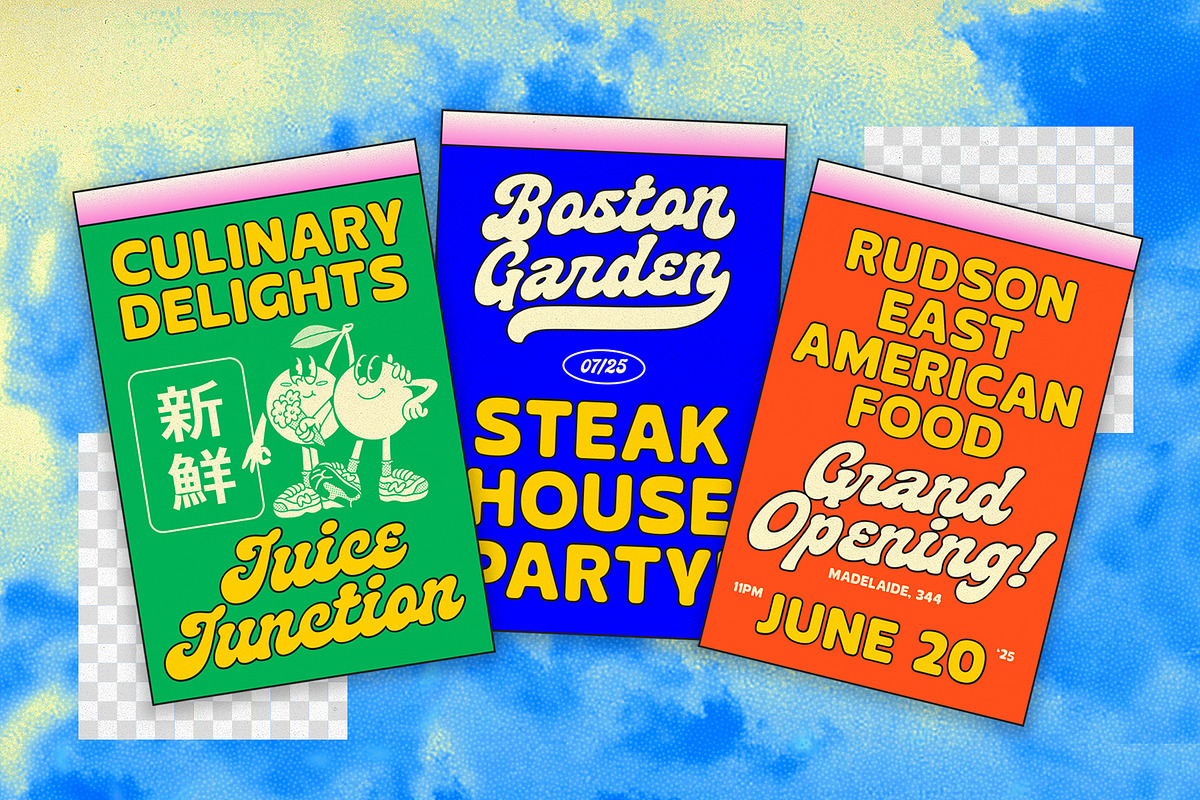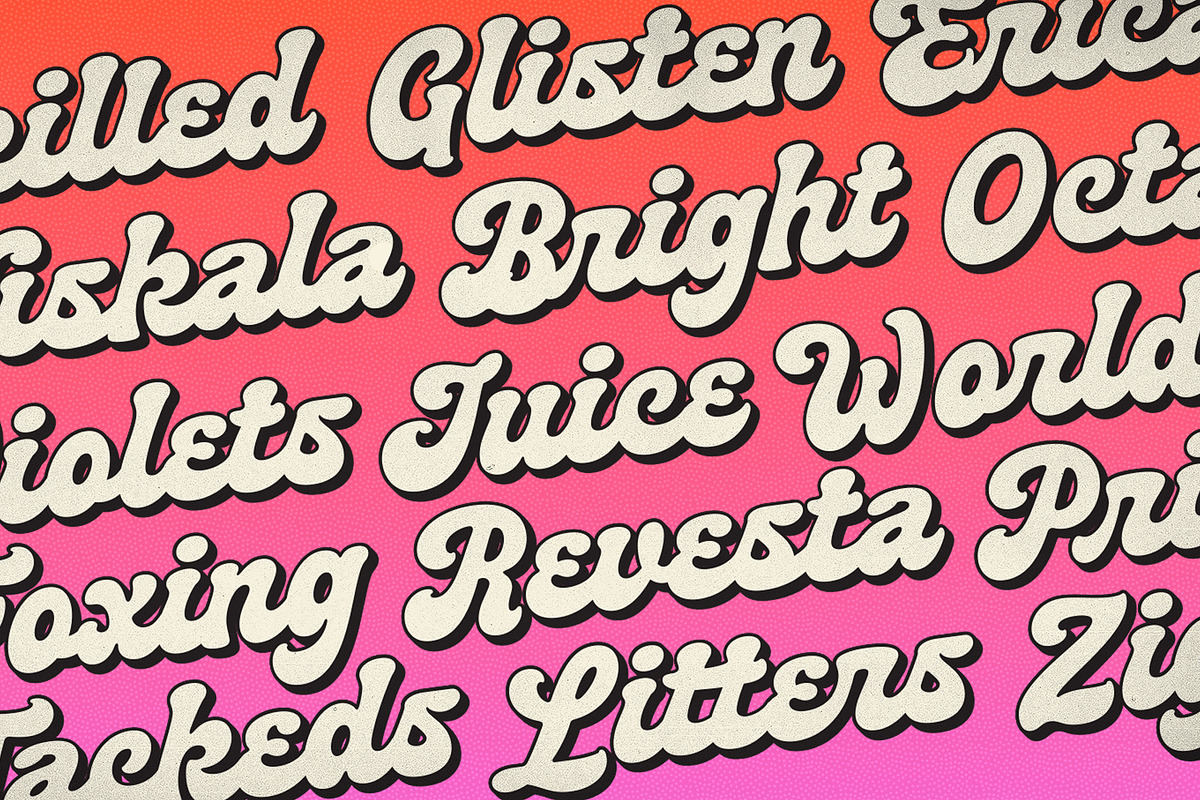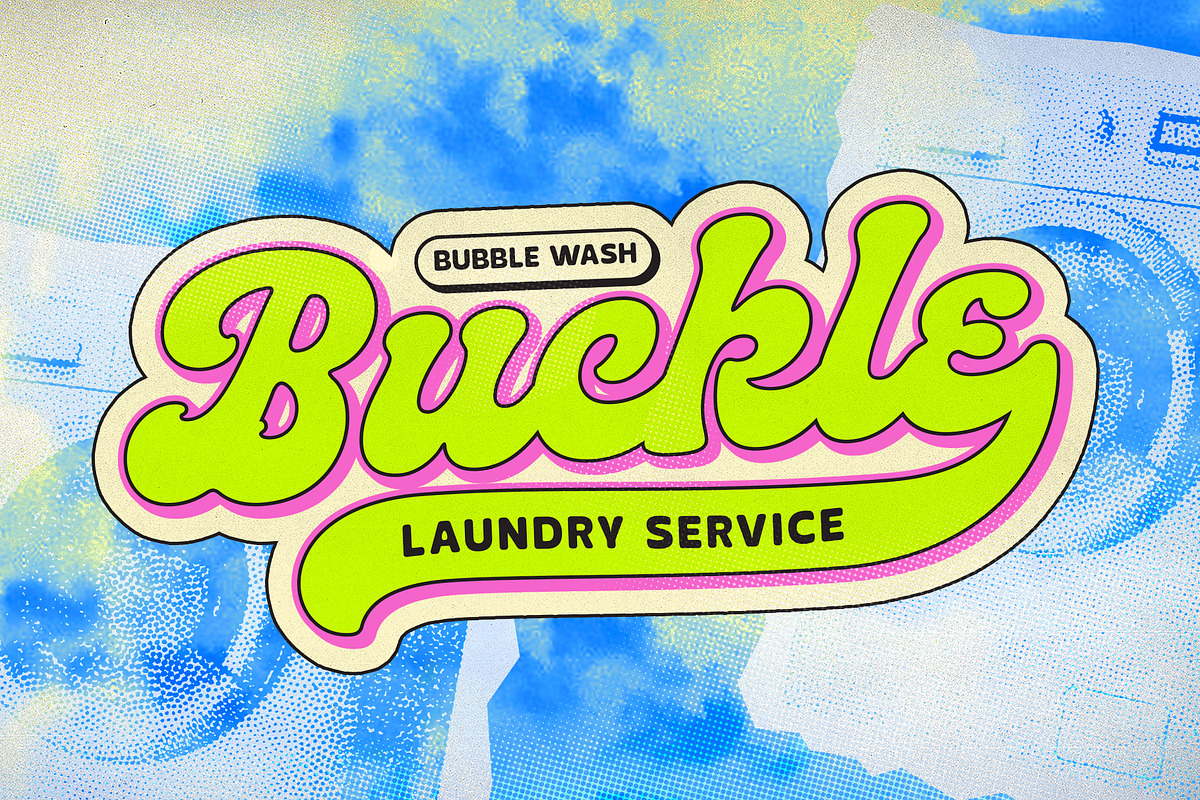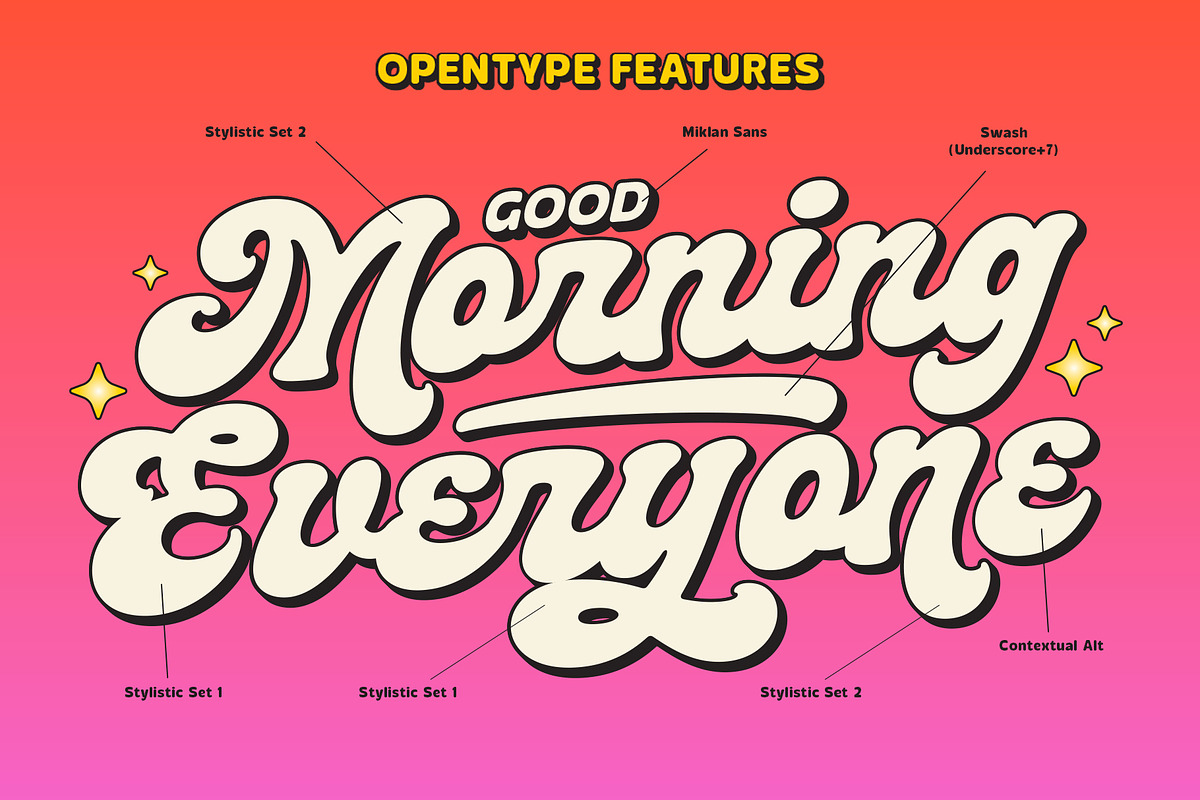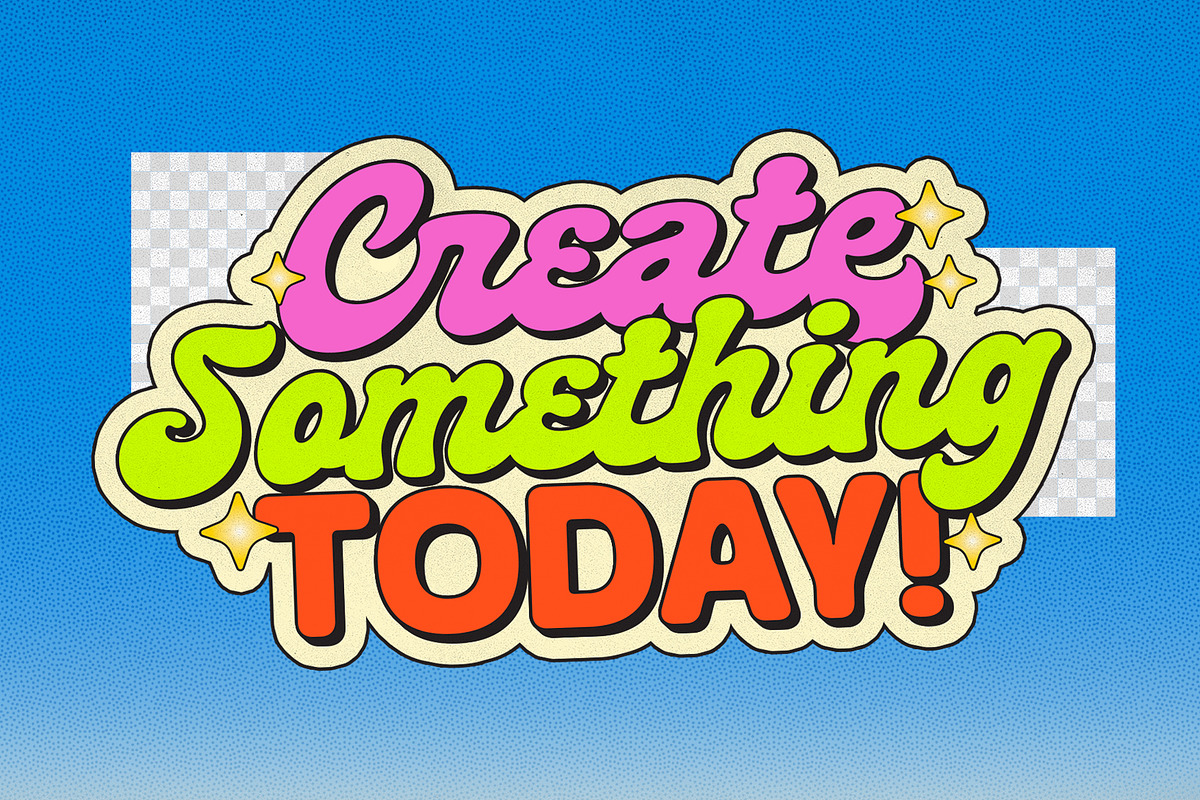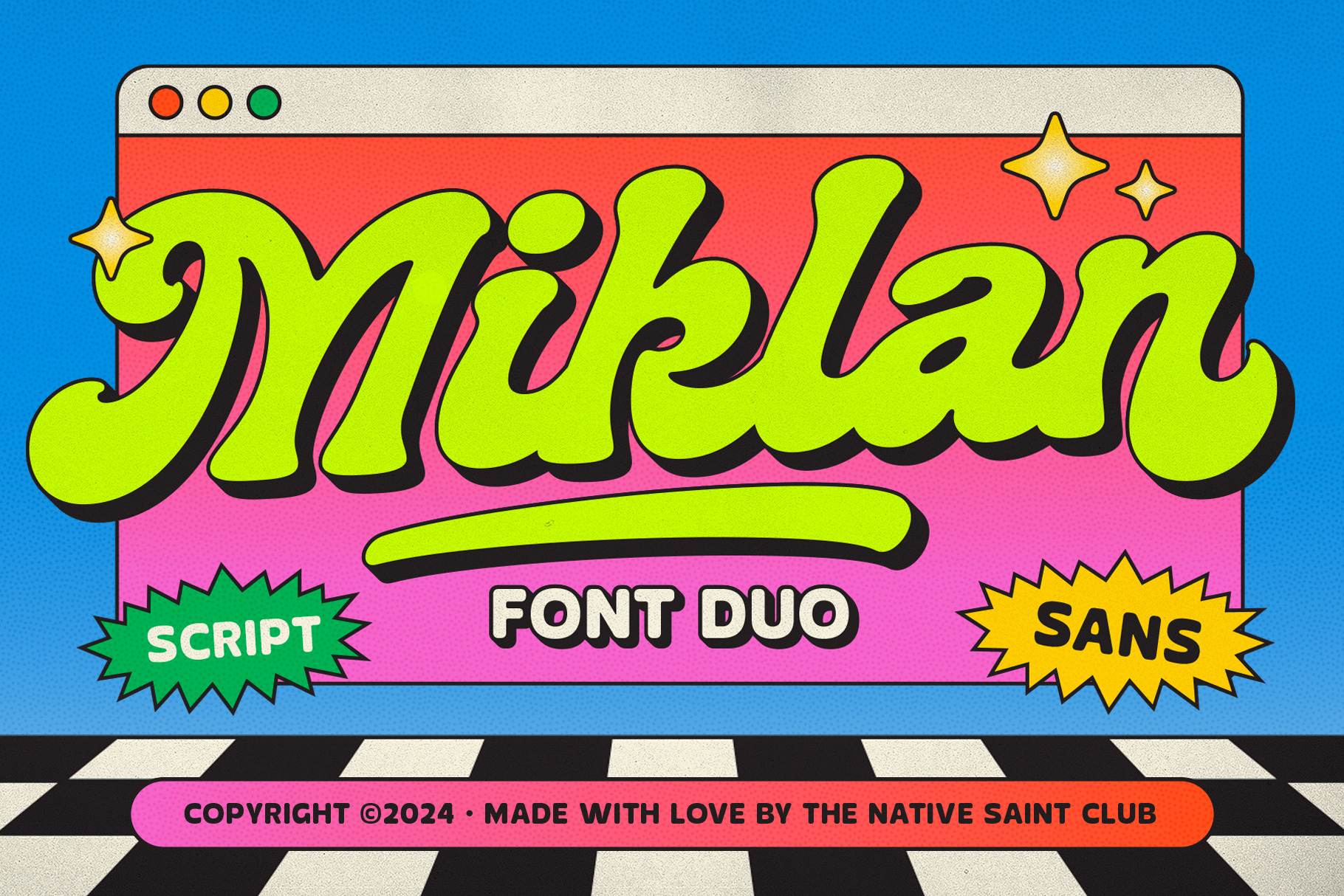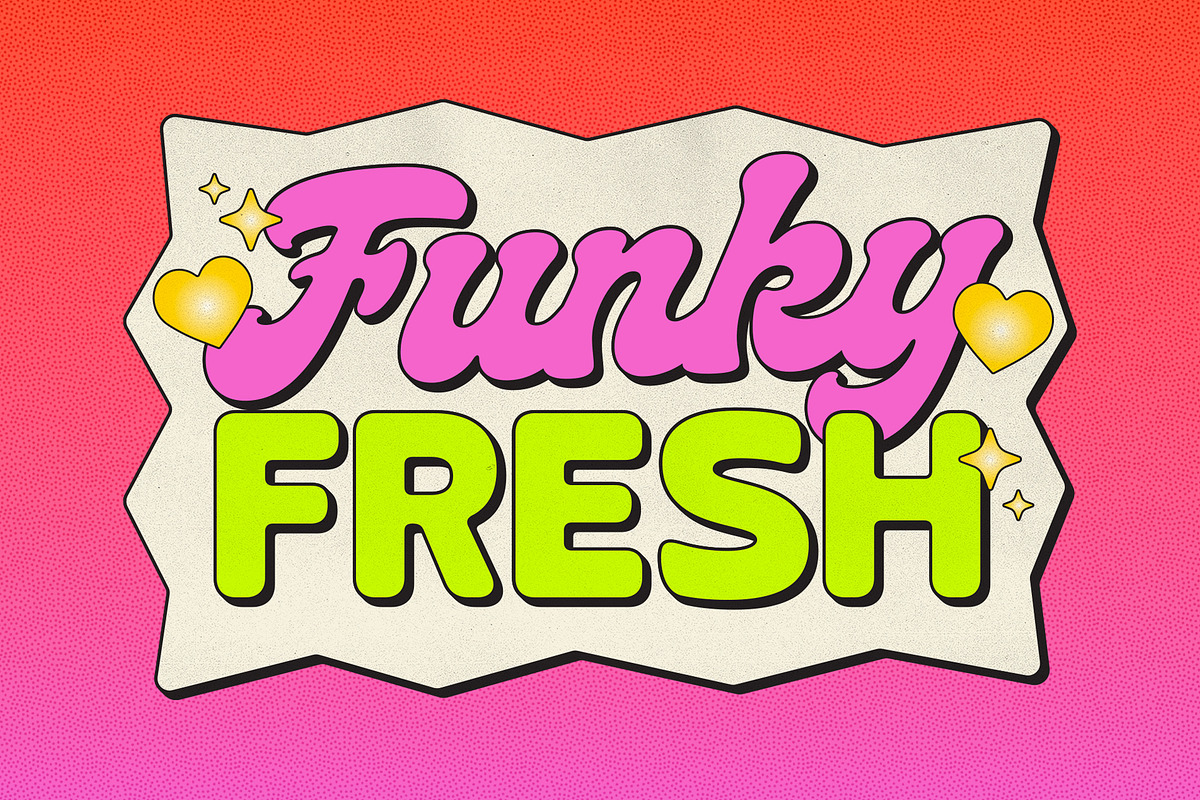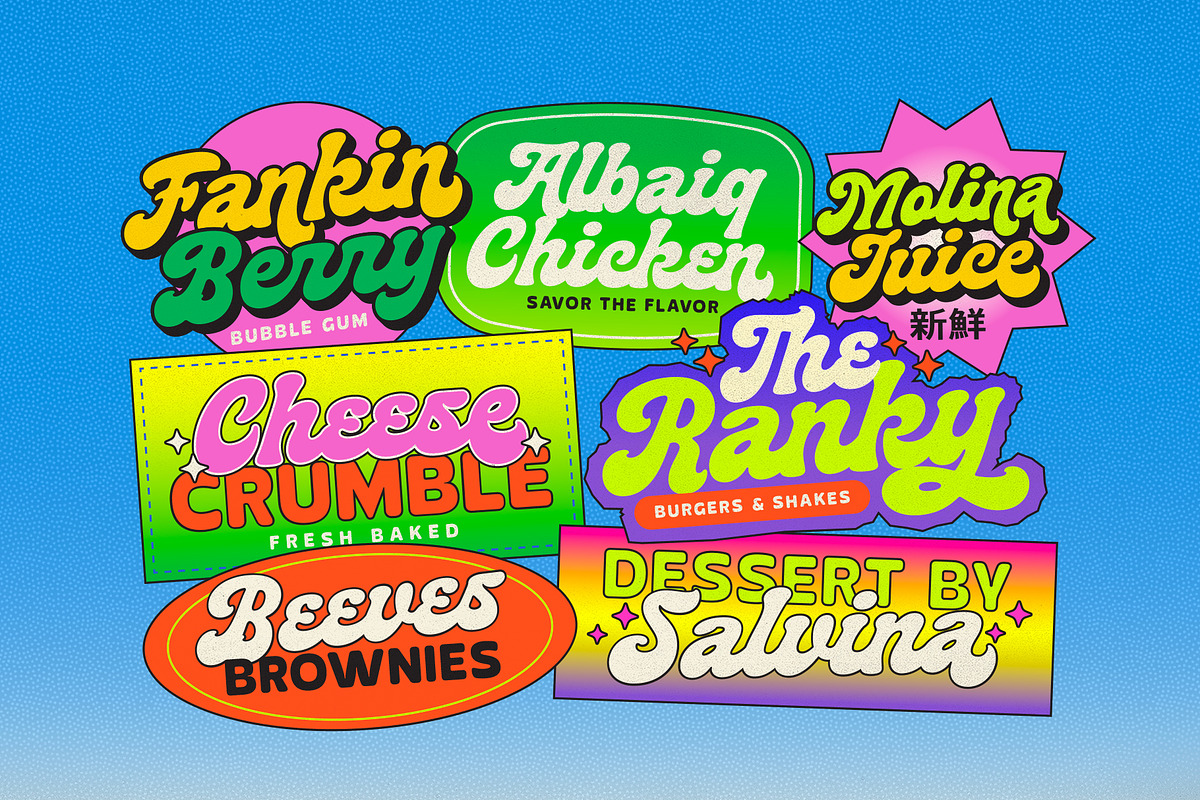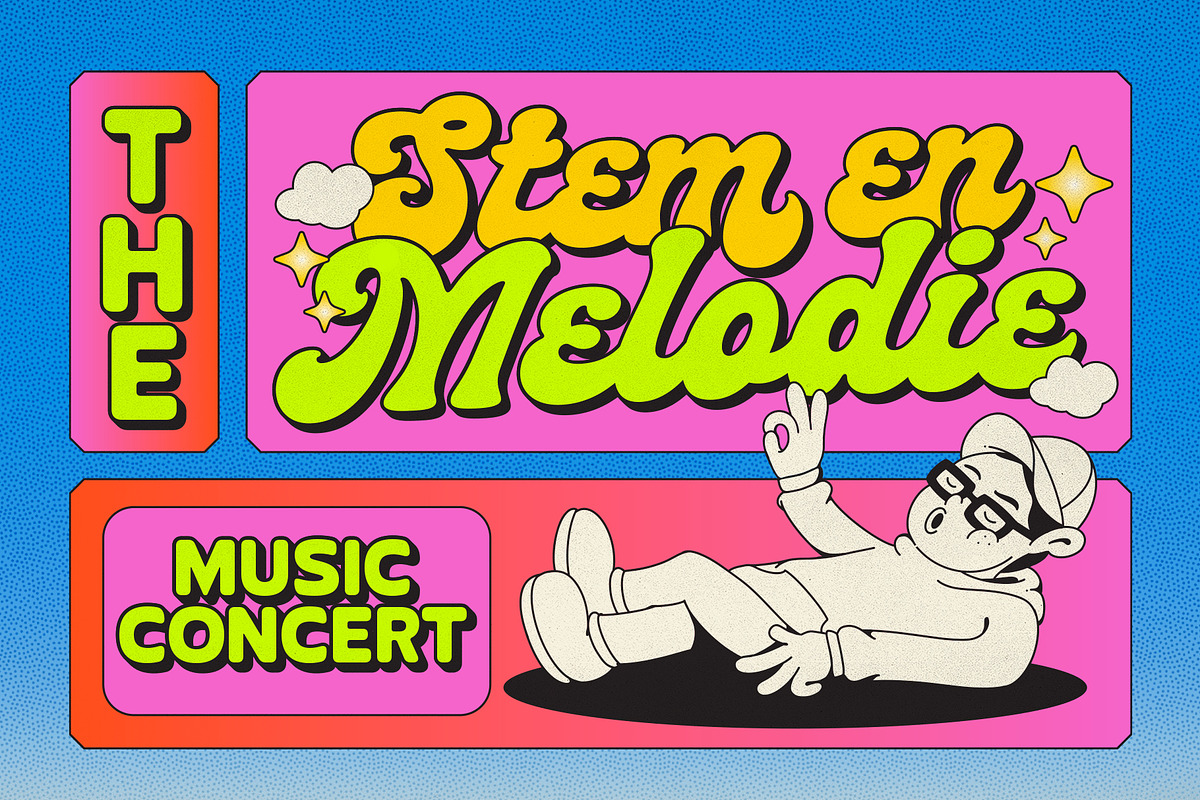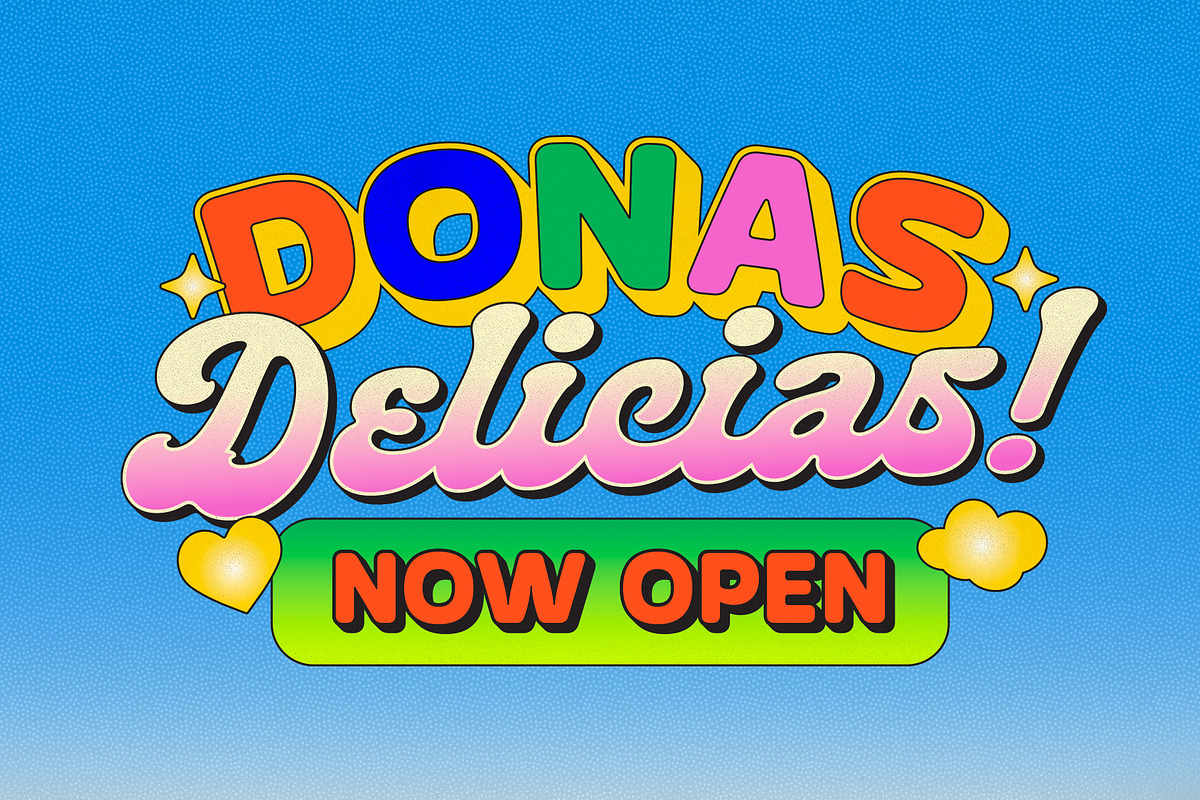
TNSC Miklan - Font Duo
TNSC Miklan- Introducing Miklan font duo, a super bold script combined with a rounded sans serif. Inspired by the timeless typography of 70s advertising posters, this combination of bold and clean sans serif is the perfect pairing to make your designs stand out with a retro touch. Perfect for anything from vintage-inspired logos to fun, standout headlines.